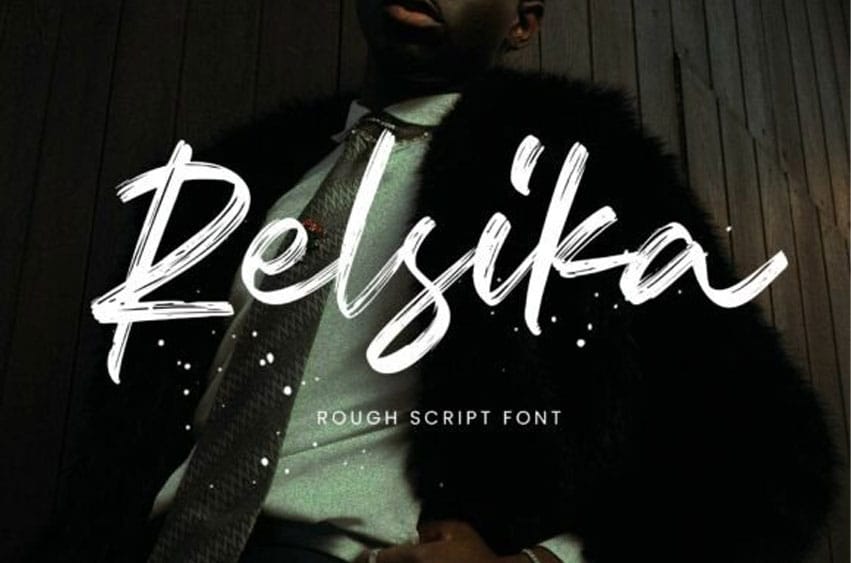
Relsika Font is a rough script font that celebrates imperfection with expressive, brush-textured strokes.
Inspired by natural handwriting, it feels organic, warm, and confidently human—giving your text a handcrafted personality without sacrificing readability.
This Relsika typeface captures the frantic, beautiful energy of street art and luxury fashion combined, featuring aggressive strokes and visible bristle marks. It is the definitive choice for music album covers, streetwear branding, and high-impact social media graphics. The Relsika font doesn’t just sit on the page; it explodes off it, providing a visceral, tactile feel to your digital designs. Pair the Relsika typeface with sleek, monochrome photography or vibrant neon accents to lean into its rebellious nature. This is more than just a font—it’s a statement of bold, unrefined creativity.
Equipped with OpenType alternates, multilingual support, and full glyph coverage, Relsika is perfect for branding, logos, quotes, packaging, and lifestyle designs. It keeps your words looking alive, authentic, and far away from the dreaded “copy-paste handwriting” look.